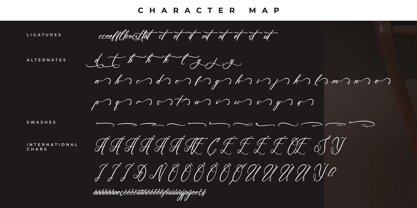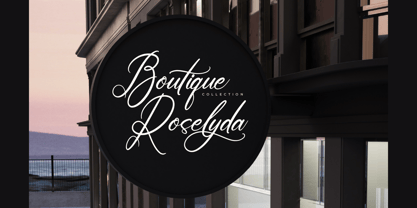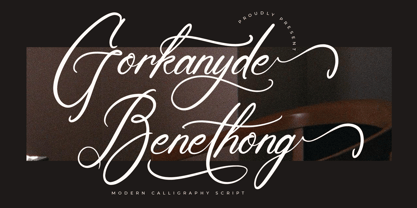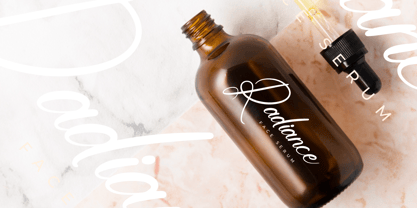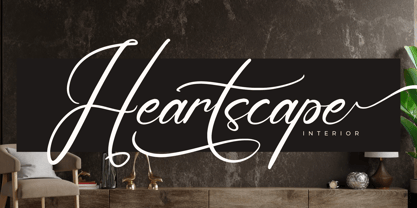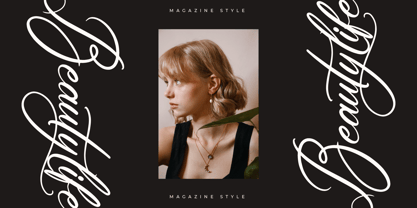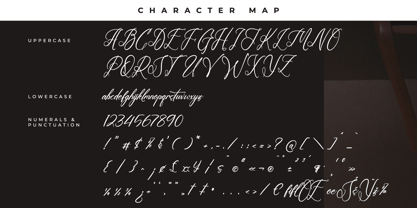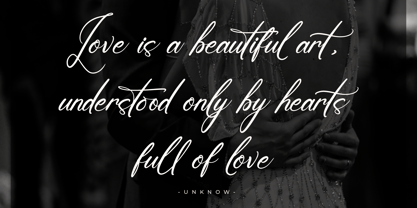
Gorkanyde Benethong
The Gorkanyde Benethong Font Family was designed by Heru Utama Putra and published by Letterena Studios. Gorkanyde Benethong contains 2 styles. More about this family
Gorkanyde Benethong – Modern Calligraphy Script , from Letterena, is a Luxury Script font, suitable for any projects such as: logos, branding projects, homeware designs, product packaging, mugs, quotes, posters, shopping bags, t-shirts, book covers, name card, invitation cards, greeting cards, label, photography, watermark, special events, and all your other luxury and beautiful projects that need a Luxury Script taste.